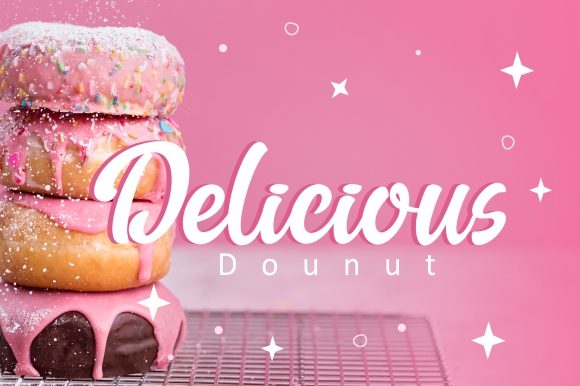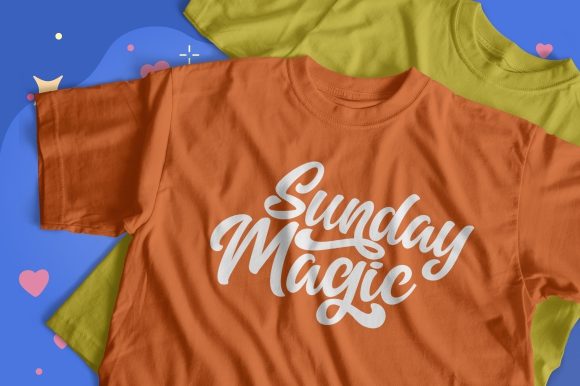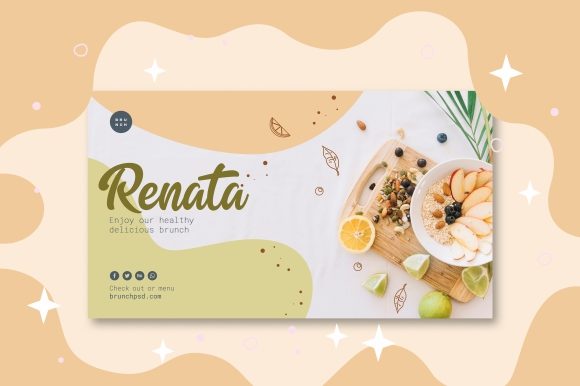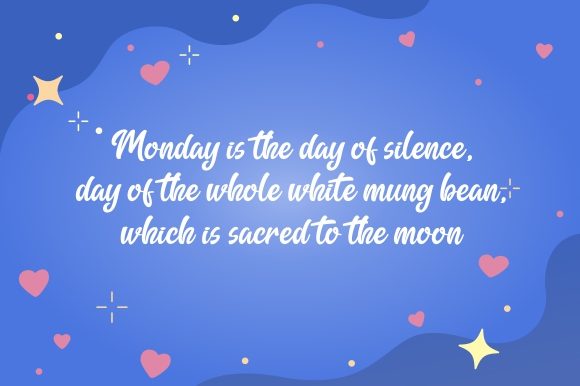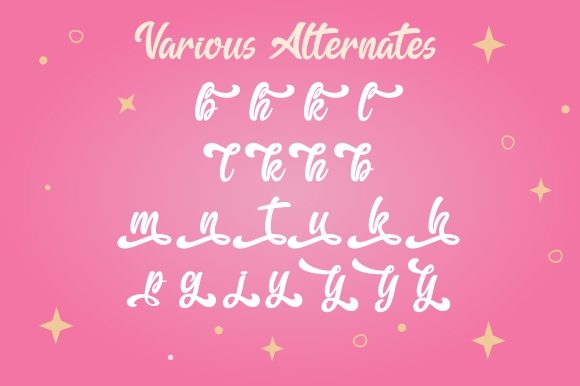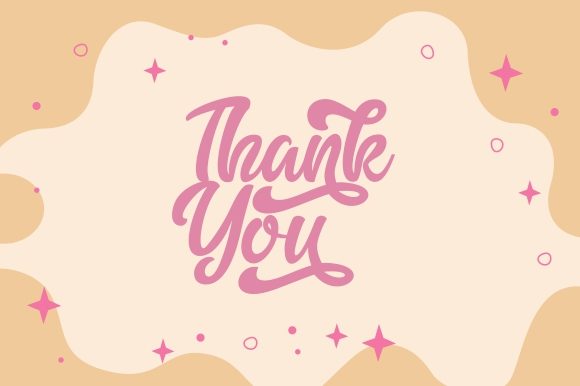
Introducing Alpha Monday Font: Elevate Your Designs with a Fresh and Cool Handwritten Style
Are you tired of using the same old fonts in your designs? Look no further! Alpha Monday Font is here to revolutionize your creative projects with its fresh and cool handwritten style. This stunning font is perfect for designers, crafters, and anyone looking to add a personal touch to their work. In this article, we’ll dive into the features and benefits of Alpha Monday Font, and explore how it can take your designs to the next level.
A Fresh and Cool Handwritten Font
Alpha Monday Font is a beautifully crafted handwritten font that exudes a sense of modernity and sophistication. Its unique and elegant style makes it perfect for a wide range of design projects, from branding and advertising to packaging and digital media. Whether you’re looking to create a bold statement or a subtle impression, Alpha Monday Font is sure to impress.
One of the standout features of Alpha Monday Font is its PUA (Private Use Area) encoding. This means that you can access all of the glyphs and swashes with ease, giving you complete creative control over your designs. With PUA encoding, you can effortlessly swap out characters and ligatures to create a unique and customized look that reflects your brand’s personality.
Alpha Monday Font is incredibly versatile, making it perfect for a wide range of design applications. Here are just a few ideas to get you started:
- Branding and Identity: Use Alpha Monday Font to create a unique and memorable brand identity that sets you apart from the competition.
- Digital Media: Add a personal touch to your social media graphics, blog posts, and website designs with this beautiful handwritten font.
- Packaging and Product Design: Make your products stand out on store shelves with eye-catching packaging designs featuring Alpha Monday Font.
- Crafting and Scrapbooking: Add a touch of elegance to your crafting and scrapbooking projects with this gorgeous font.
Why Choose Alpha Monday Font?
So why should you choose Alpha Monday Font for your next design project? Here are just a few reasons:
- Unique and Eye-Catching: Alpha Monday Font is a one-of-a-kind font that will make your designs stand out from the crowd.
- Easily Customizable: With PUA encoding, you can effortlessly customize the font to fit your brand’s style and personality.
- High-Quality Design: Alpha Monday Font is designed with precision and attention to detail, ensuring a professional finish every time.
In conclusion, Alpha Monday Font is a game-changing addition to any designer’s toolkit. Its fresh and cool handwritten style, combined with PUA encoding for easy access, makes it the perfect choice for a wide range of design projects. Whether you’re a seasoned designer or a crafty DIY enthusiast, Alpha Monday Font is sure to elevate your designs and take them to the next level. So why wait? Download Alpha Monday Font today and start bringing your creative ideas to life!